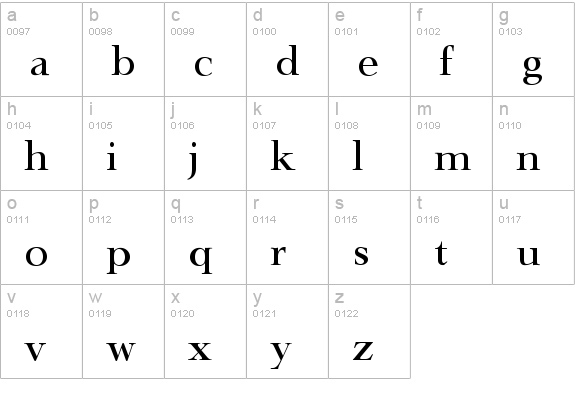
Lingwood-Medium is a balanced, medium-weight variant in the Lingwood typeface family \xE2\x80\x94 well suited to sub-headlines, navigation, and balanced editorial work.
Lingwood-Medium is a versatile and elegant font that is perfect for adding a touch of sophistication to your designs. With its clean lines and balanced proportions, this font exudes a sense of modernity and professionalism. The medium weight of the font makes it ideal for both headers and body text, ensuring readability while maintaining a strong visual impact. What sets Lingwood-Medium apart is that it is not only stylish and functional but also completely free to download. Yes, you read that right - this high-quality font is available for free at FontsMarket.com. So, whether you're working on a personal project or a professional design, Lingwood-Medium is a fantastic choice that won't break the bank. Don't miss out on the opportunity to enhance your designs with the timeless beauty of Lingwood-Medium. Download it for free today and take your creations to the next level!